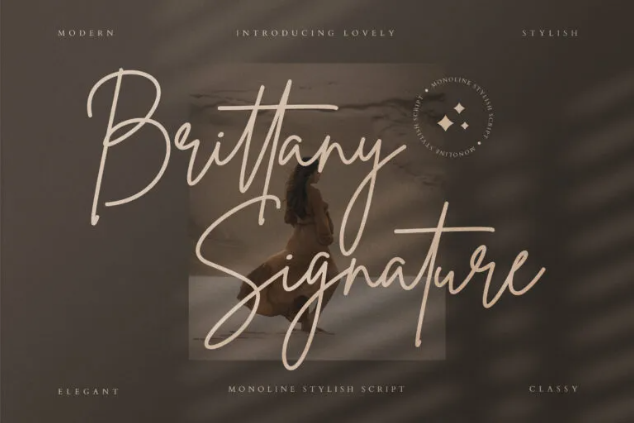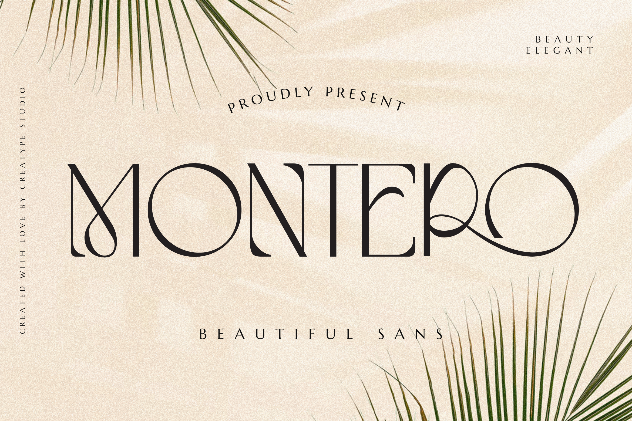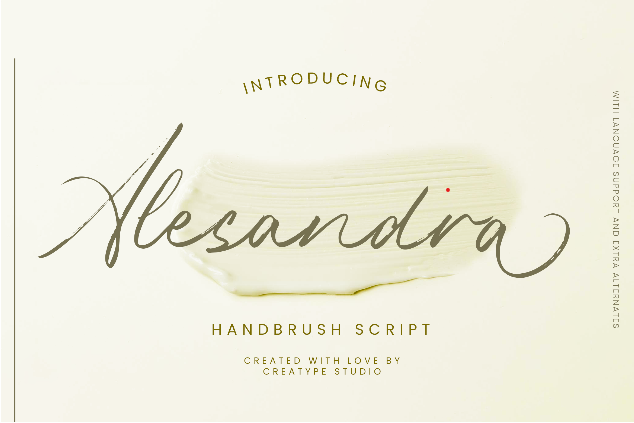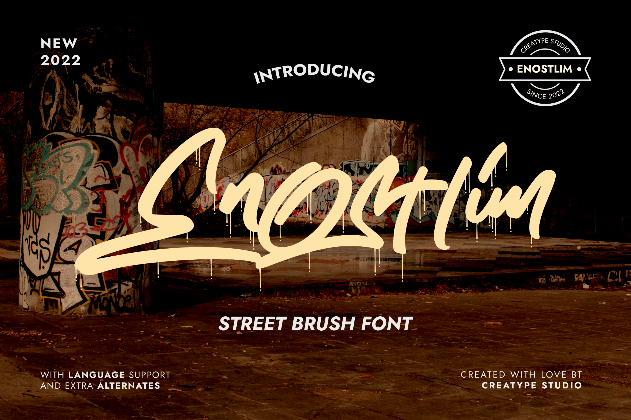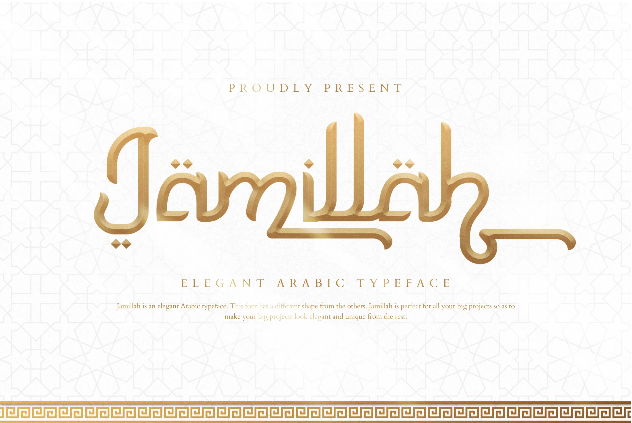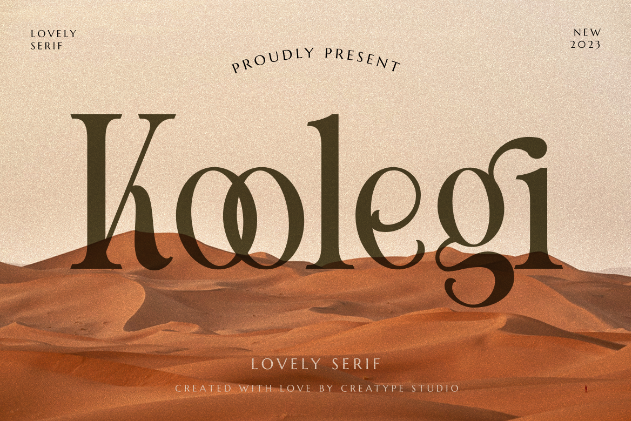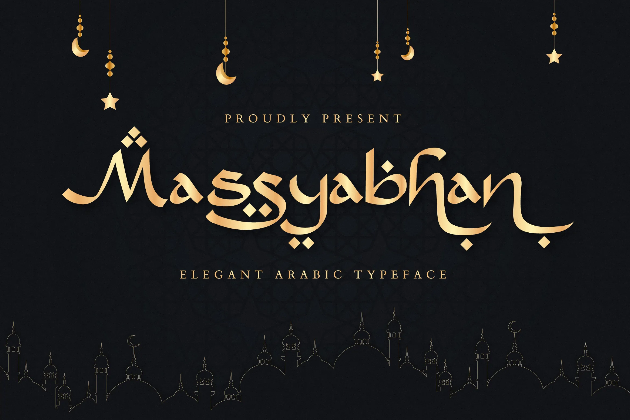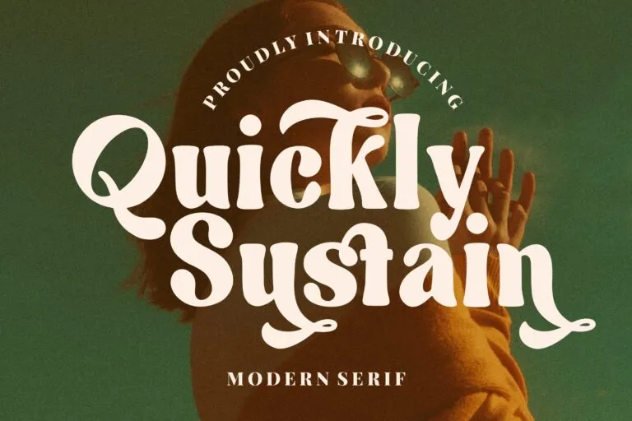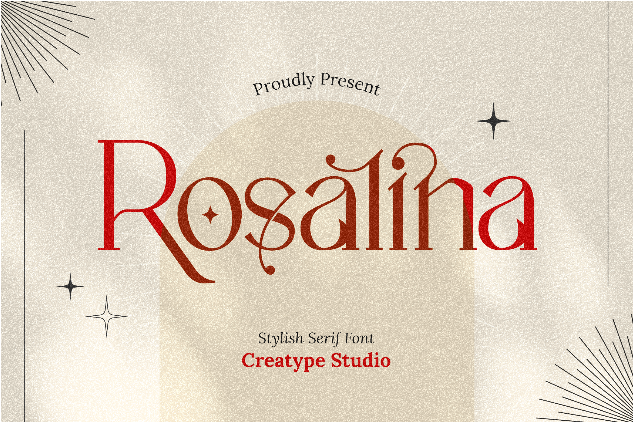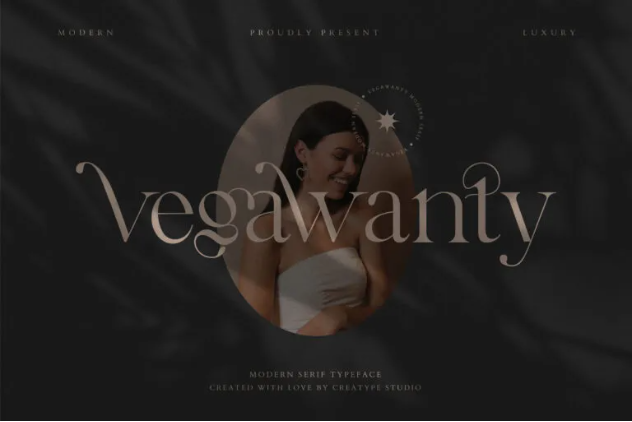
15 Best Fonts for Business Cards That Look Impressive
A business card typically promotes 3 things: display your name, your contact information, and your company name. But, a great business card does more than that. It should also radiate your work persona. With the best fonts for business cards, you can show more of yourself and look impressive. Take a look closer!
15 Best Fonts for Business Cards
An impressive business card should have a combination of creativity and readability. So, common fonts such as Times New Roman, Helvetica, and Futura can be included for additional information, but the following fonts are going to be the star. Let’s take a look at them!
1. Rosalina
Rosalina
A serif font is a no-brainer for business cards. However, Rosalina is the stylish one. The font has a sophisticated and alluring look, as well as a magical touch. It’s perfect for you who work in a clothing brand, cosmetics, or other classy job.
2. Corleone
Corleone
This one is another serif font. Corleone brings subtle elegances in every letter. This graceful typeface is timeless and classy. Corleone’s character speaks softly yet makes an impression.
3. Koolegi
Koolegi
If you want a bolder elegant serif, try Koolegi. The sleek characters are perfect for those who work in a modern and minimalist environment. Koolegi is an elegant but cool font. Therefore, you can show yourself more.
4. Quickly Sustain
Quickly Sustain
Quickly Sustain is another serif font. The difference is that it is bolder and wilder. It’s one of the best fonts for business cards if you want to make an impression right away. Besides elegance, the font is fun to work with.
5. Vegawanty
Vegawanty
If you’re looking for a serif font with numerous alternates, Vegawanty is perfect for you. This font claims to be elegant and classy, but it’s more glamorous to me. Imagine your name written in this font. Thus, it’ll bring out your inner elegance right away.
6. Porcelain
Porcelain
If you have an interest in nature and want to highlight that side, try Porcelain. It’s a sans-serif font with a natural vibe. The font has a subtle hand-lettered dip-pen texture to show more natural writing.
7. Montero
Montero
Montero is unique, it is a beautiful sans-serif font. Depending on the design you created, Montero can look classy or retro. Montero has unusually thick-thin placement in every letter, and that makes it stand out.
8. Sugeng Rawuh
Sugeng Rawuh
Sugeng Rawuh is one of the best fonts for business cards if you aim to deliver your retro personality. The font is a hand-crafted monoline retro typeface. It has similarities to script font as each letter is connected. Also, the font is naturally italic.
9. Enostlim
Enostlim
Just in case you need a business card to match your street-related business, here’s Enostlim. The font is a street brush font. It’s also completed with drip marks as usually seen in graffiti. The difference is, that Enostlim is easier to read than graffiti tags. So, it’s perfect for your so-called “business card”.
10. Harllem
Harllem
Harllem is a display font. When you see it, you’ll feel familiar with it. It is one of the best fonts for business cards if you’re related to music or automotive work. Aside from your personal information, the font is also perfect for your brand logo.
11. Massyabhan
Massyabhan
Here’s a unique one for you, Massyabhan. The font has an elegant Arabic typeface and gradation color. It’s suitable for both masculine and feminine applications. You can use this in your business card to convey that your business is Arab-related.
12. Jamillah
Jamillah
Jamilah in Arabic means beauty, and so does this Jamillah typeface. This choice is another elegant Arabic-inspired font. Jamillah has unique colors, conveying a 3D look. It’ll be cool if your business card is actually 3D too.
13. Alesandra
Alesandra
Among script fonts, Alesandra is one of the best fonts for business cards. The font has a handbrush touch to look more natural. Your name in this font will automatically become pretty and elegant.
14. Brittany Signature
Brittany Signature
Brittany Signature will magically make your name into a signature. This way, your business card will also look professional. The font is a monoline script, so it’s natural in movement yet assertive. Hence, this will be one of the good fonts for business cards
15. White Angelica
White Angelica
If you want a more feminine signature font, White Angelica is perfect for you. The font is thinner than other script fonts. White Angelica is the master of flow movement, every letter is written elegantly and looks natural. Remember to decide the correct font size for business cards, and make yours now!